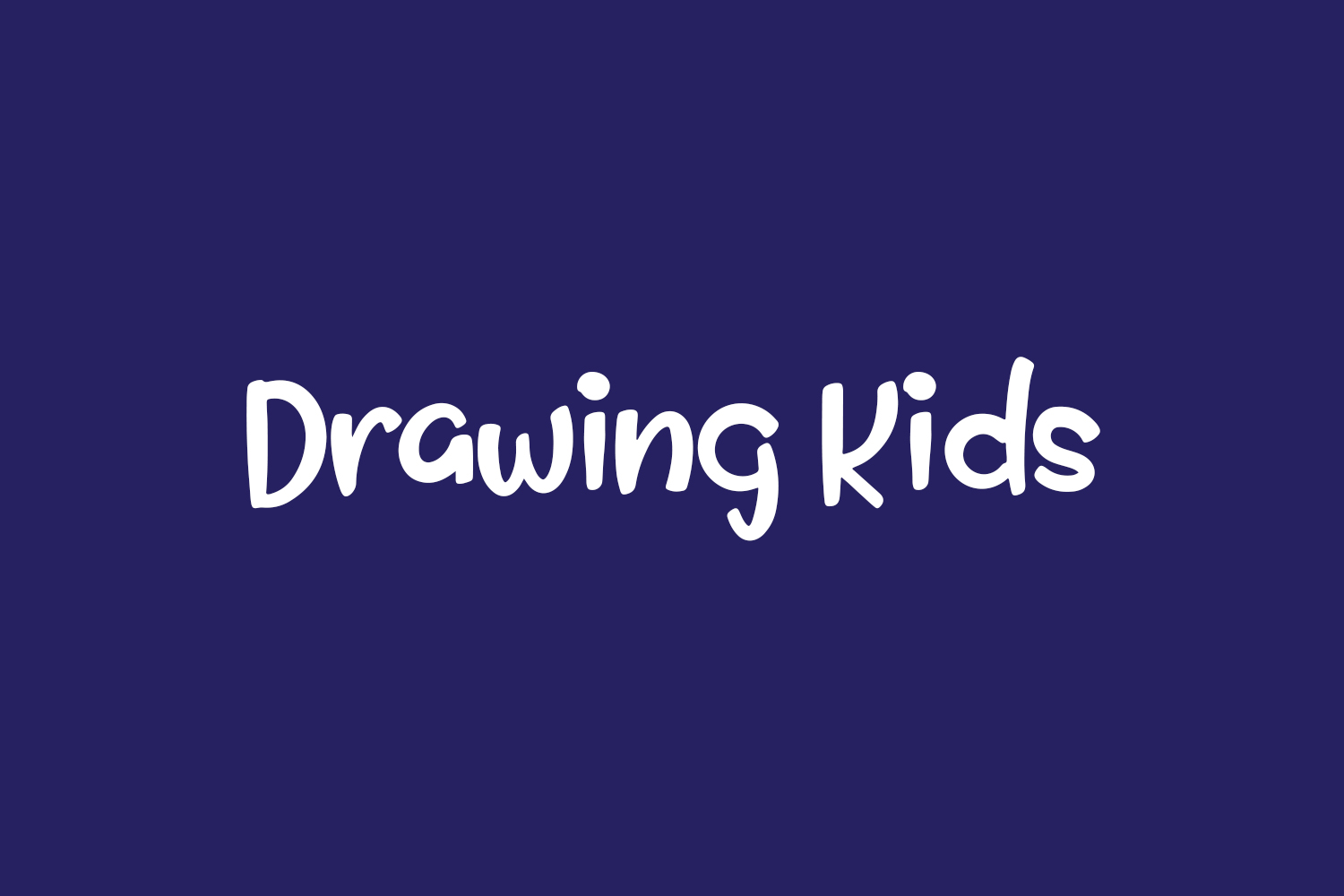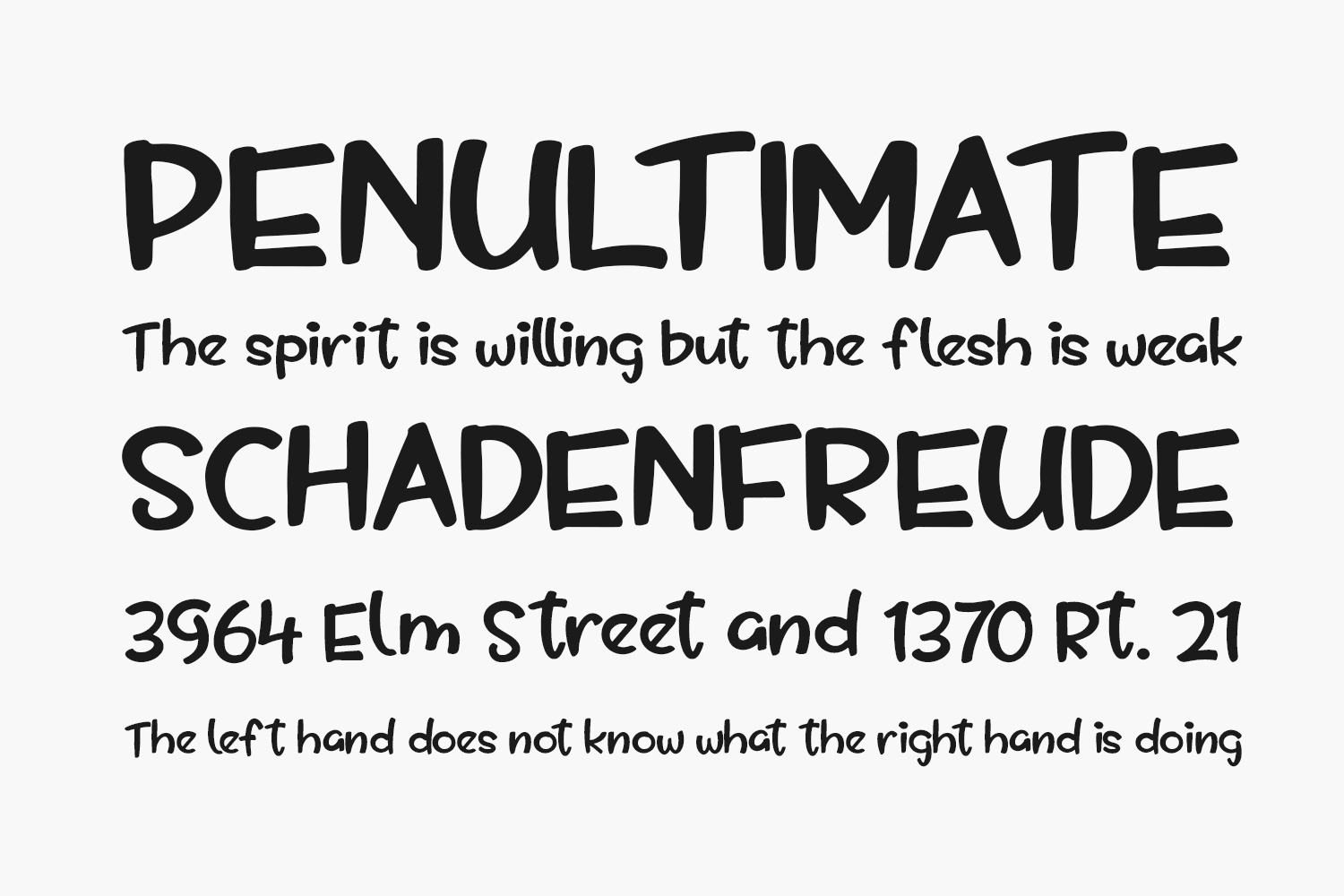
Drawing Kids Free Font is a cute, friendly, and quirky display font. It can easily be matched to an incredibly large set of projects related to children or school, so add it confidently and notice how it makes them stand out. Drawing Kids Free Font was designed by Perspectype Studio and is free for personal use only. Please purchase the full version for commercial use.